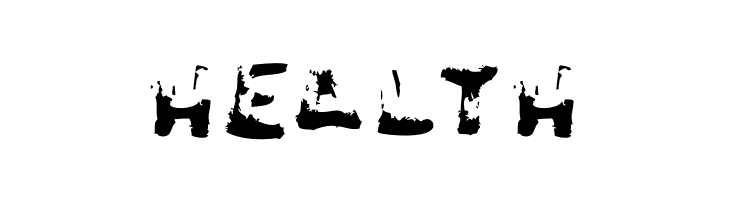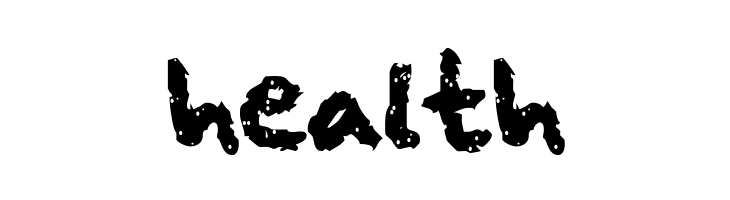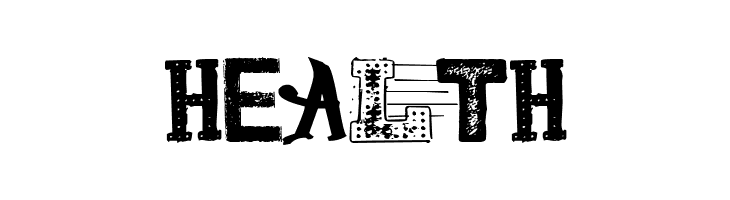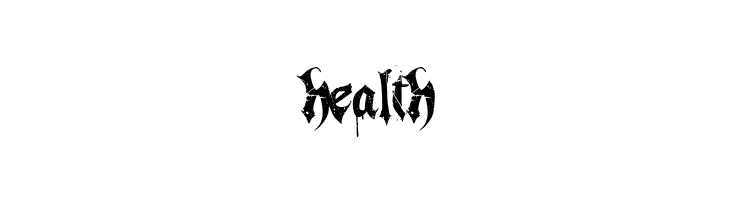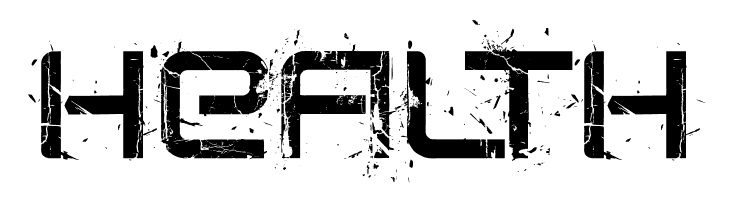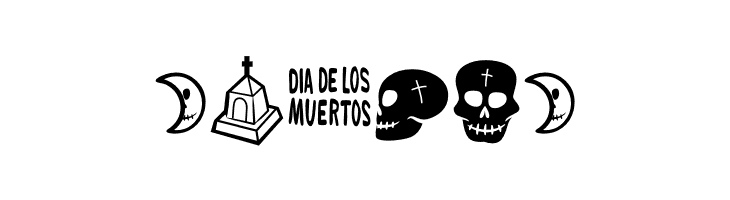
A bold, distressed font with a grunge, textured style.
A distressed, grungy font with bold, textured characters perfect for edgy designs.
A bold, distressed blackletter font with a grunge effect.
A bold, high-contrast serif font with dramatic and elegant features.
A mosaic-patterned font with a bold, artistic style.
A bold, grunge-style font with a distressed, textured appearance.
A decorative typeface inspired by Dia de los Muertos, featuring festive and thematic symbols.